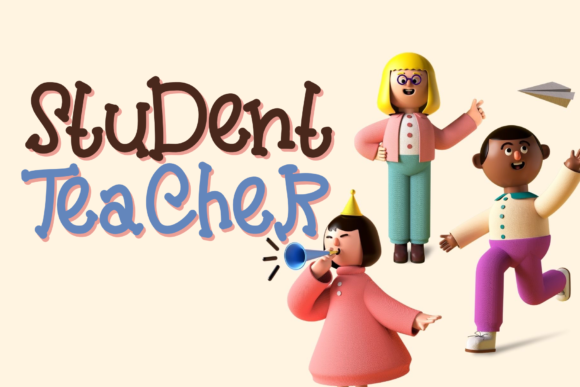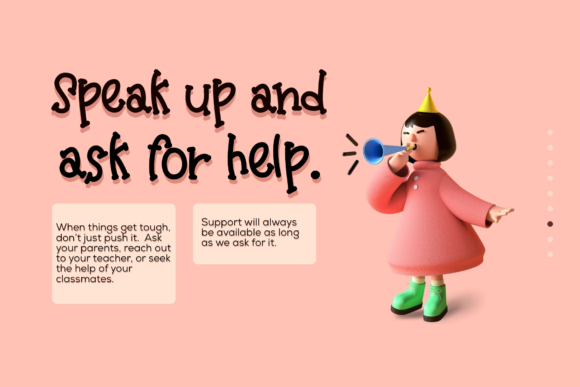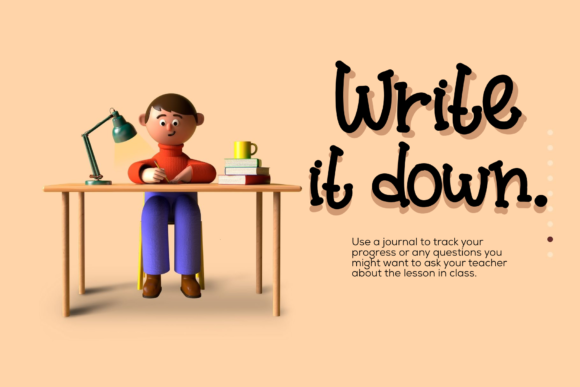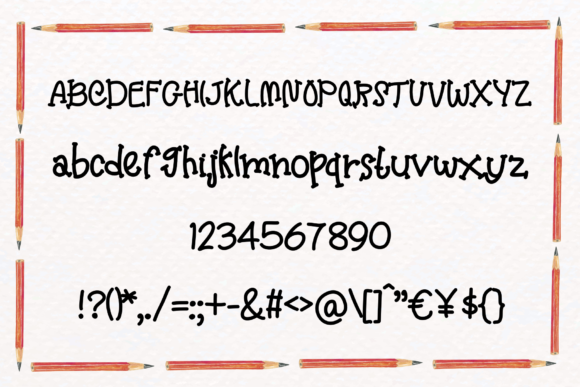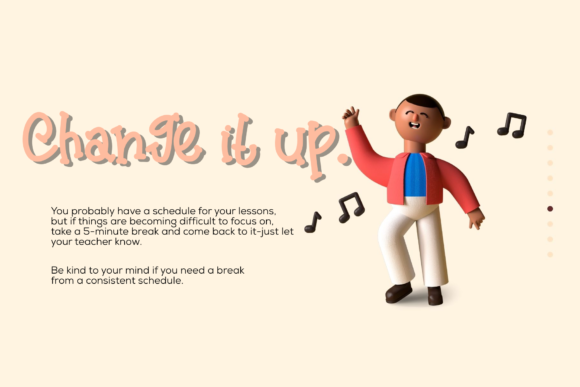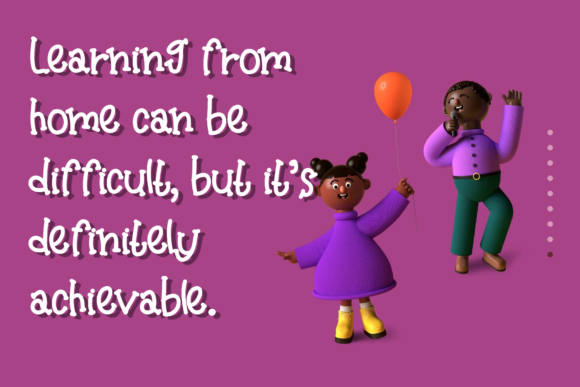
Student and Teacher Font
About Student and Teacher Font
Student and Teacher is a quirky and fun handwritten font. No matter the topic, this font will be an incredible asset to your fonts’ library, as it has the potential to elevate any creation.